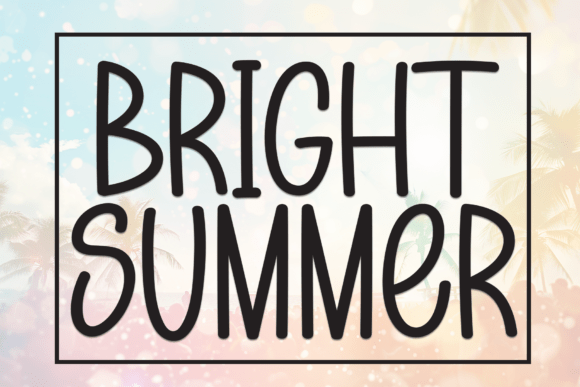
Discover the Warmth of Bright Summer: A Casual yet Impactful Display Font
Ah, the quest for the perfect font – a journey every designer, crafter, and creative hobbyist knows all too well. I recall working on a summer-themed branding project, determined to capture the essence of sunshine and warmth. The challenge? Finding a font that felt both casual and neat, approachable yet impactful. That’s when I stumbled upon Bright Summer, a gem of a display font that instantly resonated with my project’s vibe.
First Impressions: A Love Letter to Bright Summer
Bright Summer is more than just a font – it’s a design companion that brings a sense of clarity and warmth to any project. Its clean structure and balanced letterforms make it an excellent choice for branding, headlines, and everyday designs. Here’s what I love about it:
- ✨ Readability and charm: Bright Summer strikes the perfect balance between being easy to read and having a unique personality.
- ✅ Versatility: It suits a wide range of projects, from digital designs to print materials.
- 💡 OpenType features: The font comes with a range of OpenType features, including stylistic alternates and glyphs, which add an extra layer of creativity to your designs.
A Few Quirks to Consider
No font is perfect, and Bright Summer is no exception. Here are a few quirks to keep in mind:
- 🤔 Limited use in body text: While Bright Summer shines in headlines and titles, it might not be the best choice for body text due to its display nature.
- ⚠️ Kerning adjustments: As with any font, you might need to make some manual kerning adjustments to ensure optimal spacing and readability.
Putting Bright Summer to Work: A Practical Guide
The Story Behind Bright Summer
Bright Summer was designed with the intention of capturing the warmth and clarity of a perfect summer day. The designer aimed to create a font that felt approachable yet impactful, making it suitable for a wide range of design projects. By combining clean lines with a friendly aesthetic, Bright Summer has become a versatile tool in many designers’ arsenals.
| Is Bright Summer suitable for body text? | While Bright Summer is primarily designed as a display font, it can be used for short paragraphs of body text. However, for longer texts, a more traditional font might be more readable. |
| Does Bright Summer support OpenType features? | Yes, Bright Summer comes with a range of OpenType features, including stylistic alternates and glyphs, which can enhance your designs. |
| Is Bright Summer available in different weights? | Currently, Bright Summer is available in a single weight. You can experiment with different sizes and colors to achieve variations in your design. |
Bright Summer is a fantastic addition to any designer’s font library, offering a unique blend of warmth, clarity, and versatility. Whether you’re working on branding, headlines, or everyday designs, this font is sure to make your projects shine.